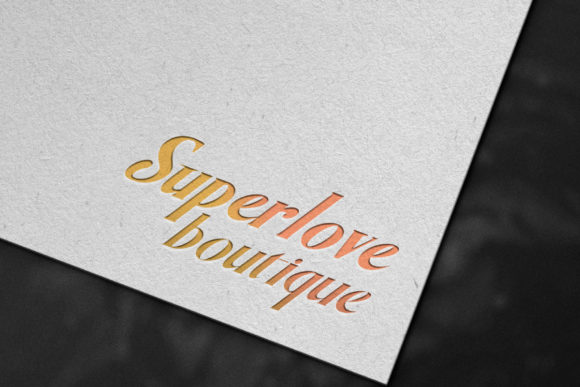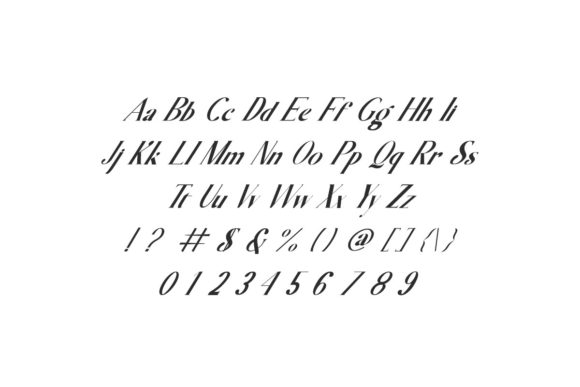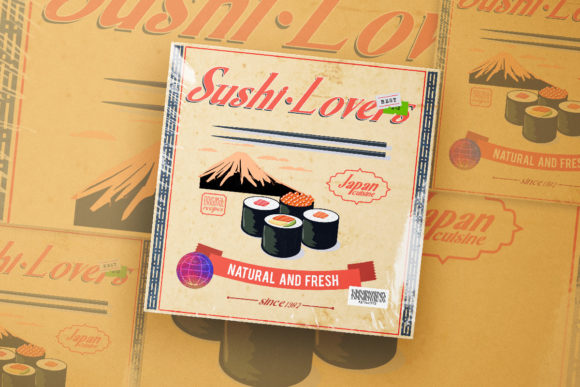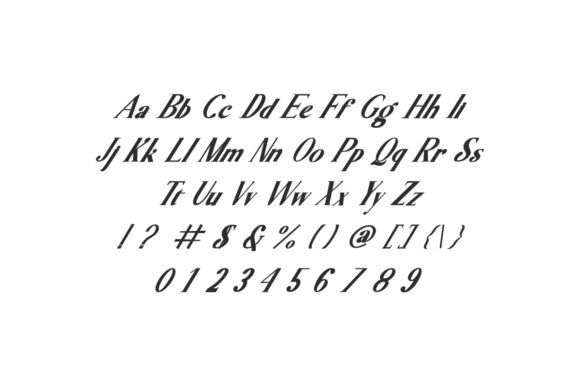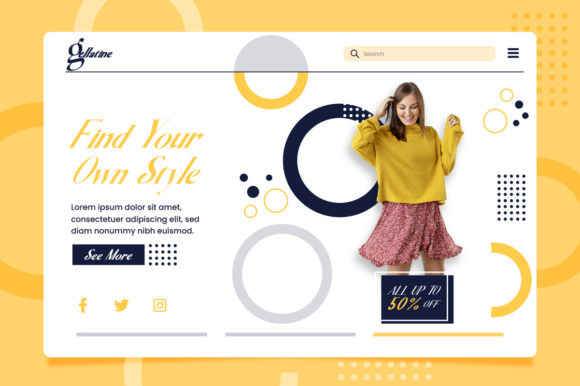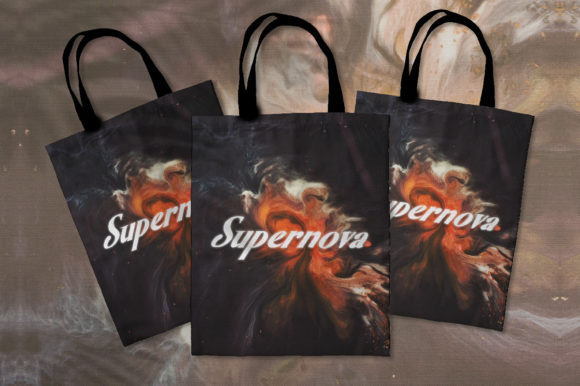
Cerolinedion Font: Elevate Your Designs with a Stylish and Distinct Serif Font
In the world of typography, a font can make or break a design. With the right font, you can convey a message, evoke emotions, and create a lasting impression. If you’re a designer or crafter looking for a stylish and distinct serif font to elevate your projects, look no further than Cerolinedion. In this article, we’ll explore the features and benefits of Cerolinedion, and how it can be used to take your designs to the next level.
What is Cerolinedion Font?
Cerolinedion is a stylish and distinct serif font with a casual, contemporary vibe. Its unique design makes it perfect for a wide range of projects, from headings and logos to branding design, quotes, products, cards, stationery, invitations, and more. With Cerolinedion, you can add a touch of sophistication and elegance to your designs, while also conveying a sense of modernity and freshness.
Key Features of Cerolinedion Font
So, what makes Cerolinedion stand out from other serif fonts? Here are some of its key features:
- Stylish and Distinct Design: Cerolinedion has a unique and stylish design that sets it apart from other serif fonts. Its casual, contemporary vibe makes it perfect for designers and crafters who want to create modern and fresh designs.
- Versatile: Cerolinedion is a versatile font that can be used for a wide range of projects, from headings and logos to branding design, quotes, products, cards, stationery, invitations, and more.
- Easy to Read: Despite its stylish design, Cerolinedion is easy to read, making it perfect for body text and other applications where readability is important.
- Scalable: Cerolinedion is a scalable font that looks great at any size, from large headings to small body text.
Benefits of Using Cerolinedion Font
So, why should you use Cerolinedion for your designs? Here are some of the benefits of using this stylish and distinct serif font:
- Stand Out from the Crowd: With Cerolinedion, you can create designs that stand out from the crowd. Its unique design makes it perfect for designers and crafters who want to create something different and eye-catching.
- Convey a Sense of Modernity: Cerolinedion’s casual, contemporary vibe makes it perfect for designers and crafters who want to convey a sense of modernity and freshness in their designs.
- Elegance and Sophistication: Despite its modern design, Cerolinedion also conveys a sense of elegance and sophistication, making it perfect for high-end designs and luxury brands.
- Easy to Pair with Other Fonts: Cerolinedion is easy to pair with other fonts, making it perfect for designers and crafters who want to create complex and interesting typography.
Project Ideas Using Cerolinedion Font
So, what can you create with Cerolinedion? Here are some project ideas to get you started:
- Headings and Titles: Use Cerolinedion to create stylish and eye-catching headings and titles for your designs.
- Logos and Branding Design: Cerolinedion is perfect for logos and branding design, thanks to its unique and stylish design.
- Quotes and Posters: Use Cerolinedion to create inspiring quotes and posters that stand out from the crowd.
- Products and Packaging: Cerolinedion is perfect for product design and packaging, thanks to its modern and fresh vibe.
- Cards and Stationery: Use Cerolinedion to create stylish and elegant cards and stationery that make a lasting impression.
- Invitations and Announcements: Cerolinedion is perfect for invitations and announcements, thanks to its elegant and sophisticated design.
In conclusion, Cerolinedion is a stylish and distinct serif font that can elevate your designs to the next level. Its unique design, versatility, and ease of use make it perfect for a wide range of projects, from headings and logos to branding design, quotes, products, cards, stationery, invitations, and more. Whether you’re a designer or crafter, Cerolinedion is a font that’s sure to inspire and impress.